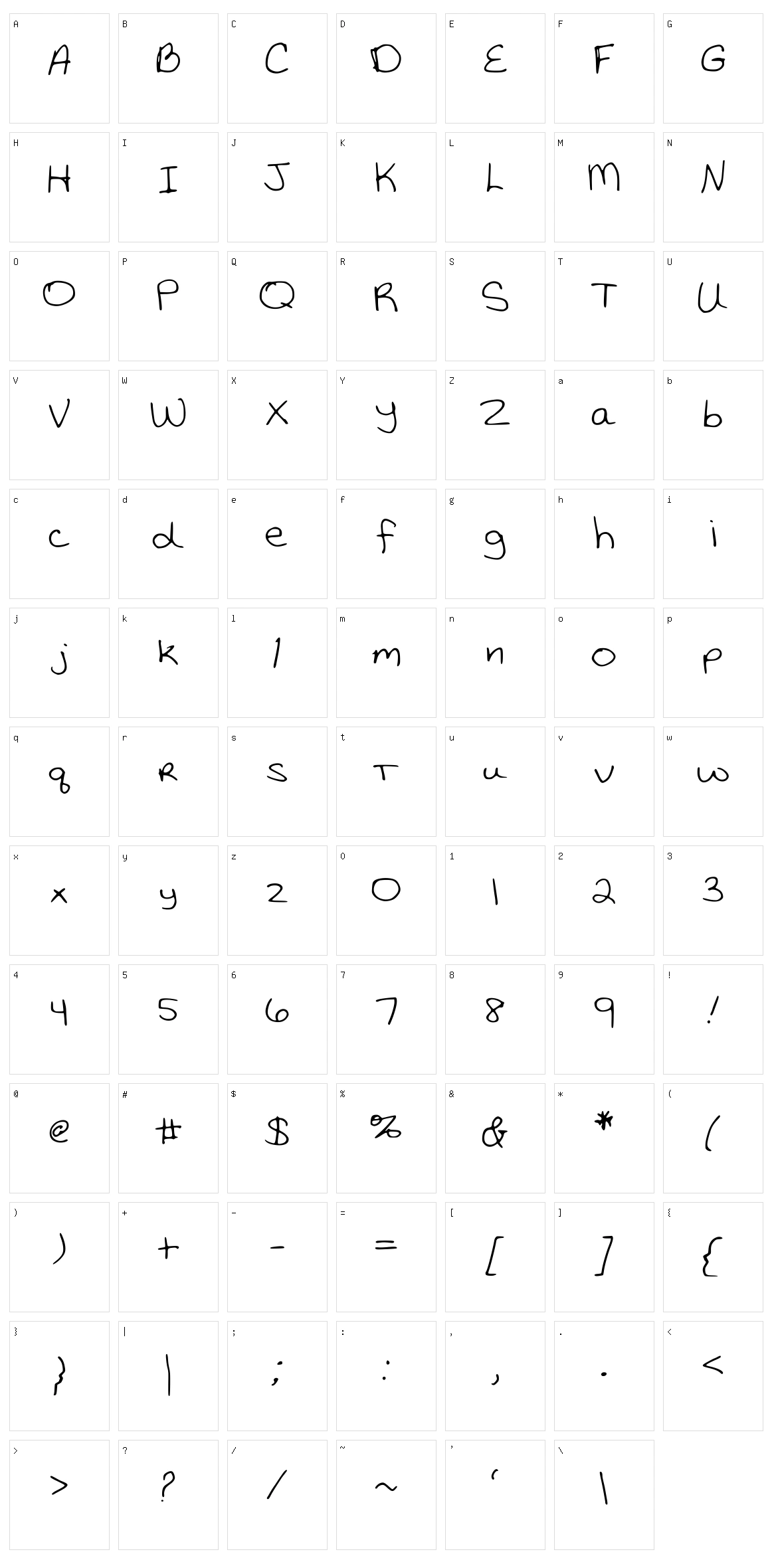
The free font Katie Thompsons Handwriting is carefully designed by Alina Morgan, showcasing a thoughtful balance of creativity and usability and falls under the Script font style. When you download the ZIP file, it contains only 19.27 KB of font files, making it lightweight and quick to download. Please review the license details below to understand permitted usage and distribution rights. If license information is not available, we recommend using this font for personal projects only or contacting the author directly for commercial usage permissions.